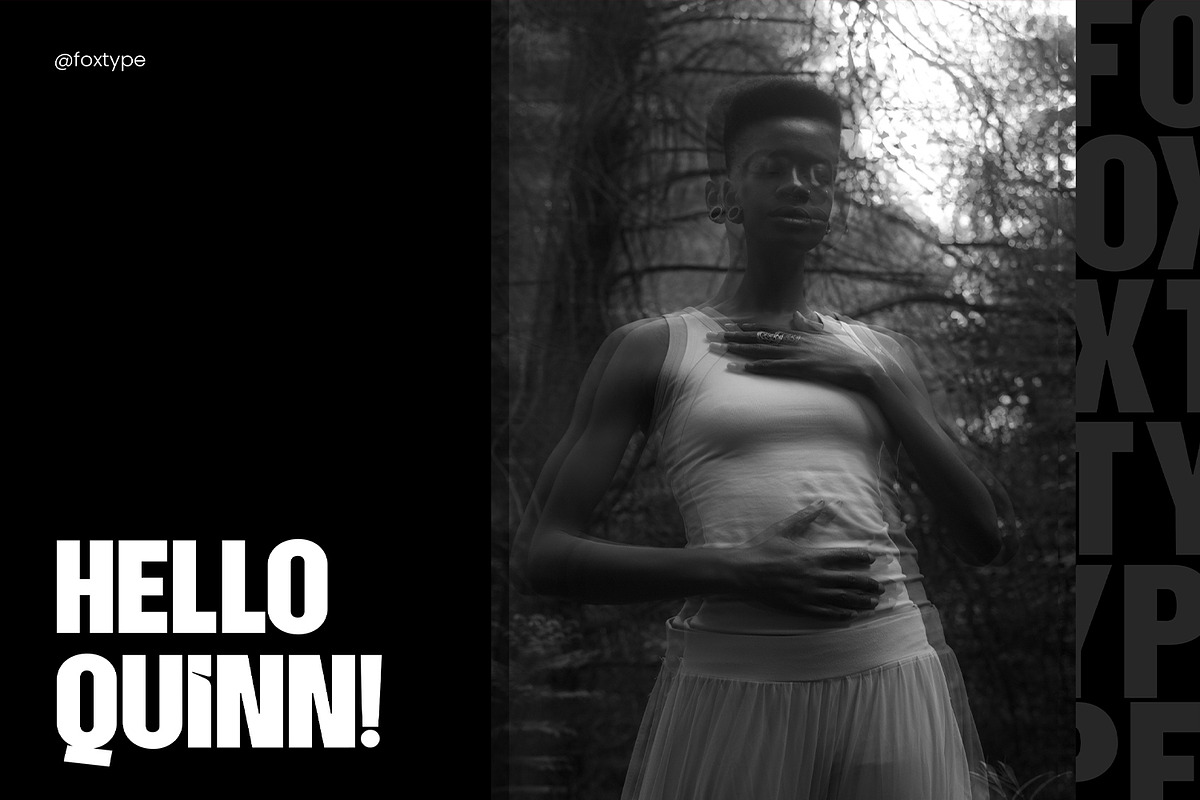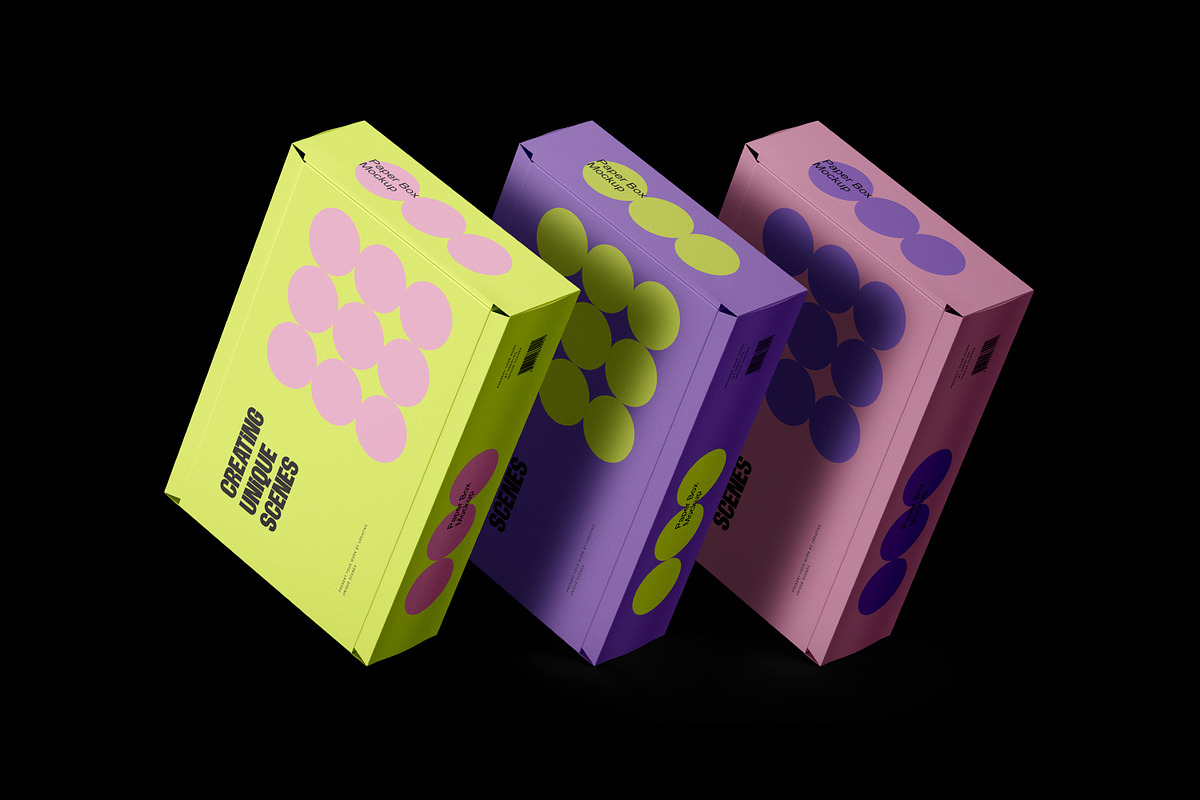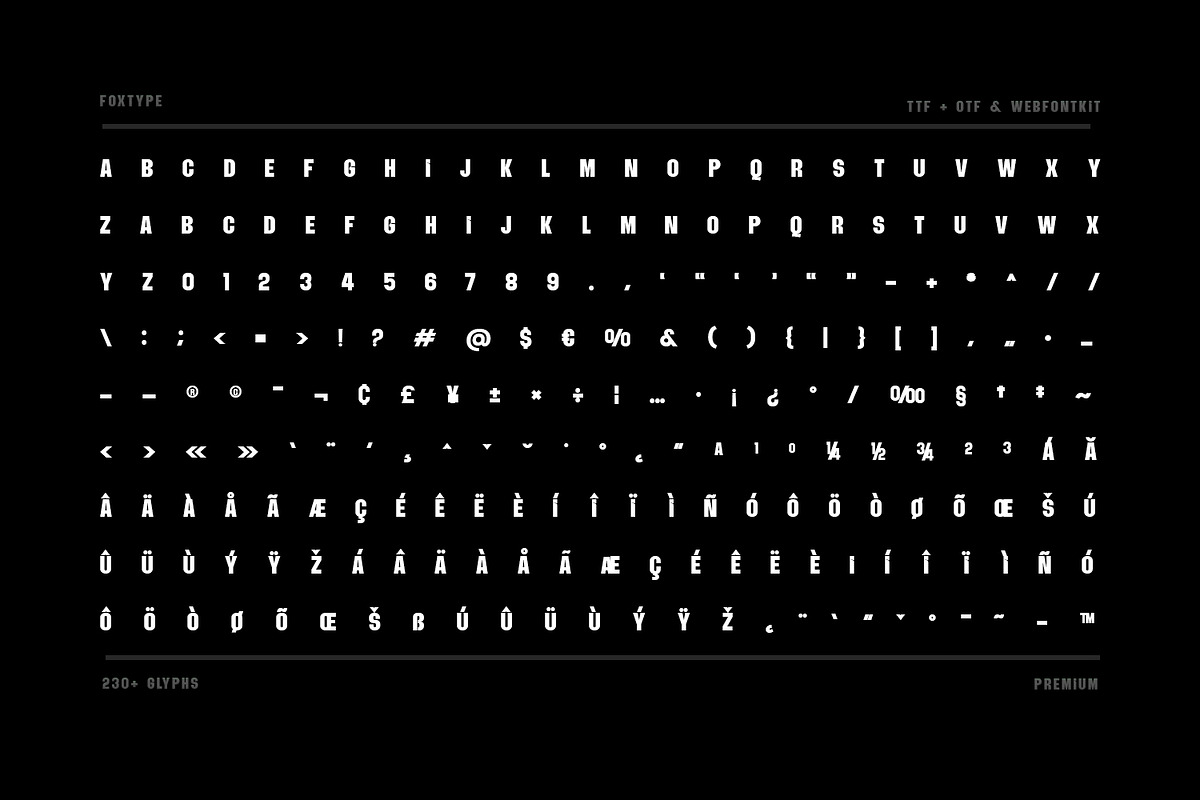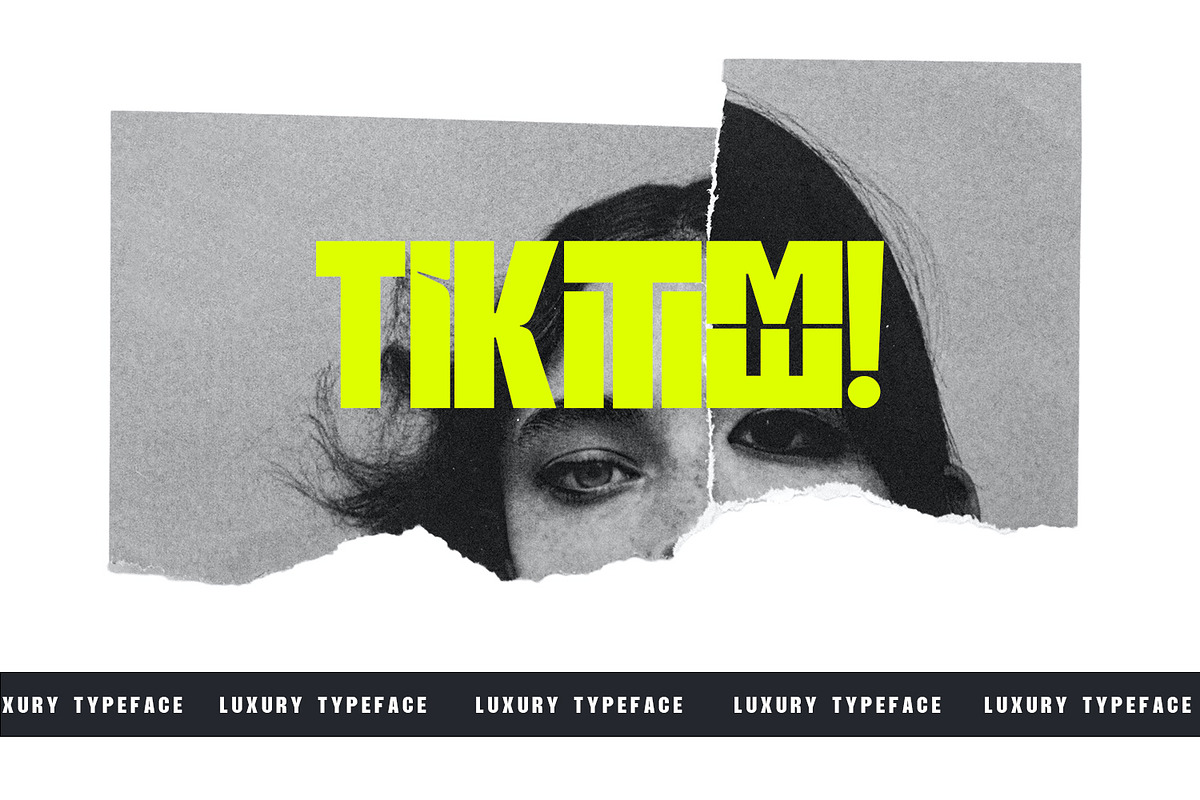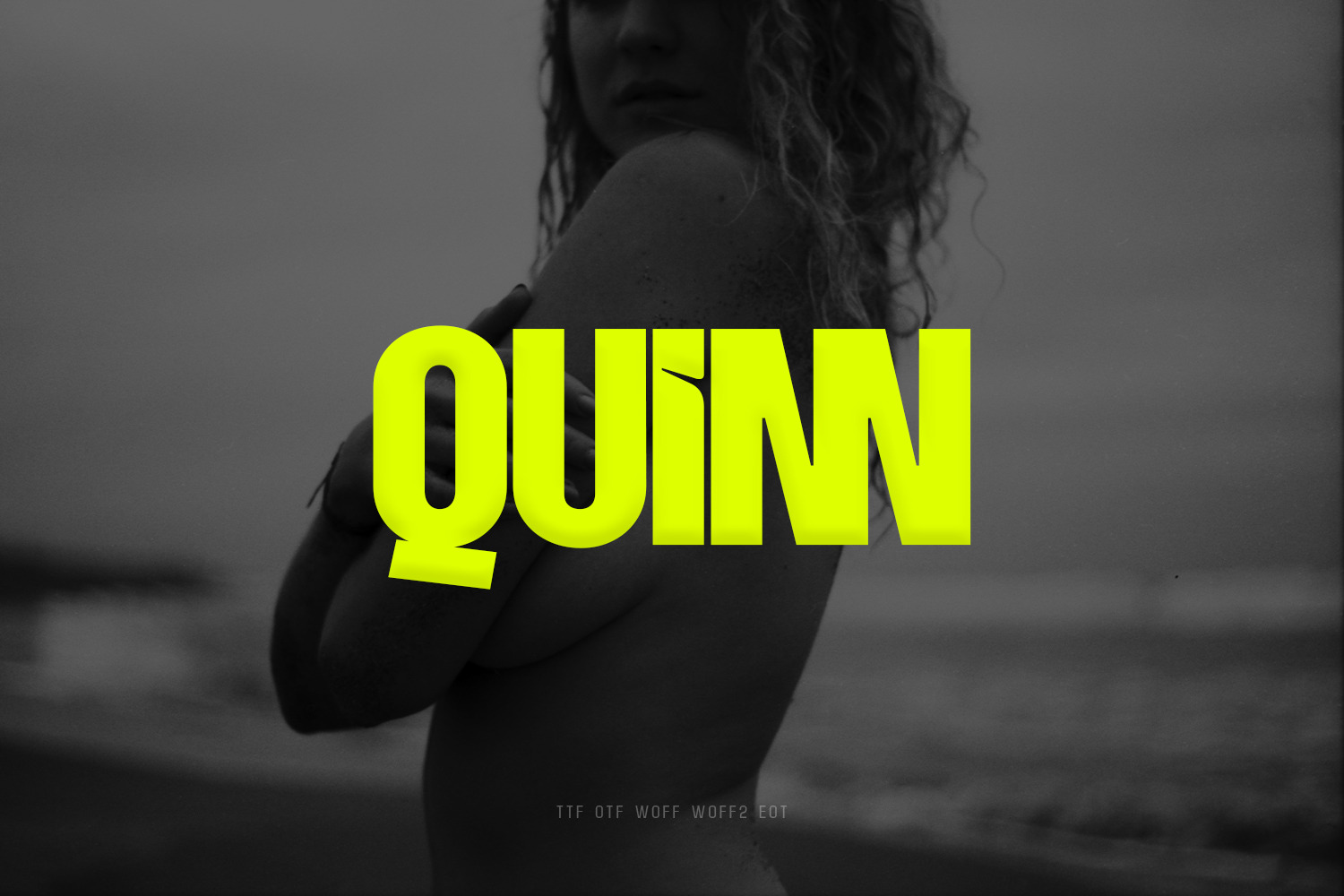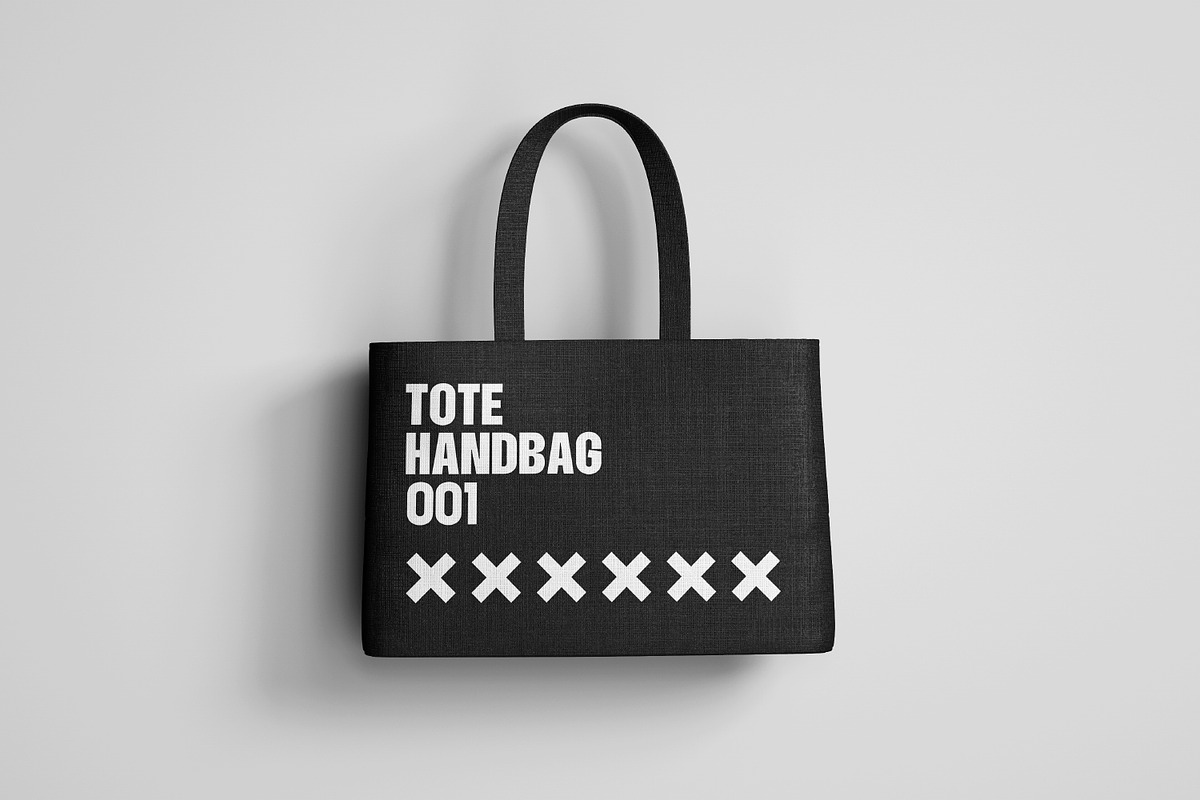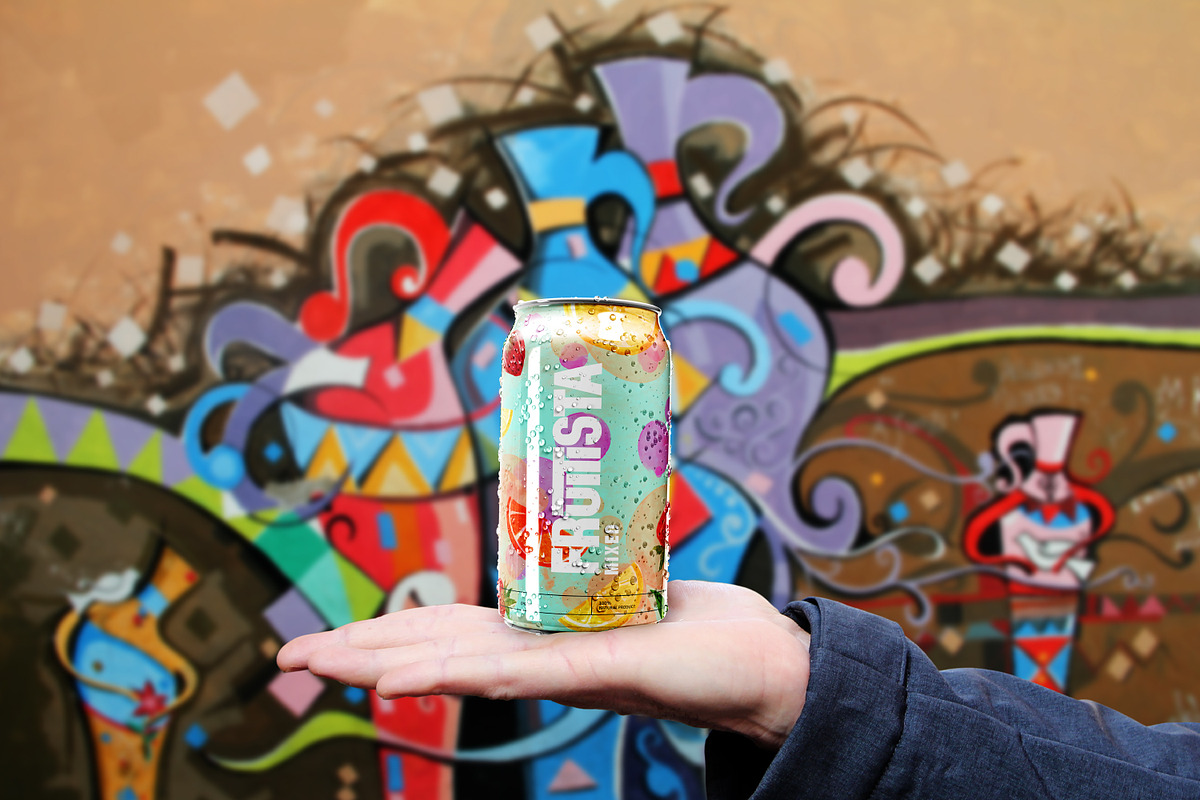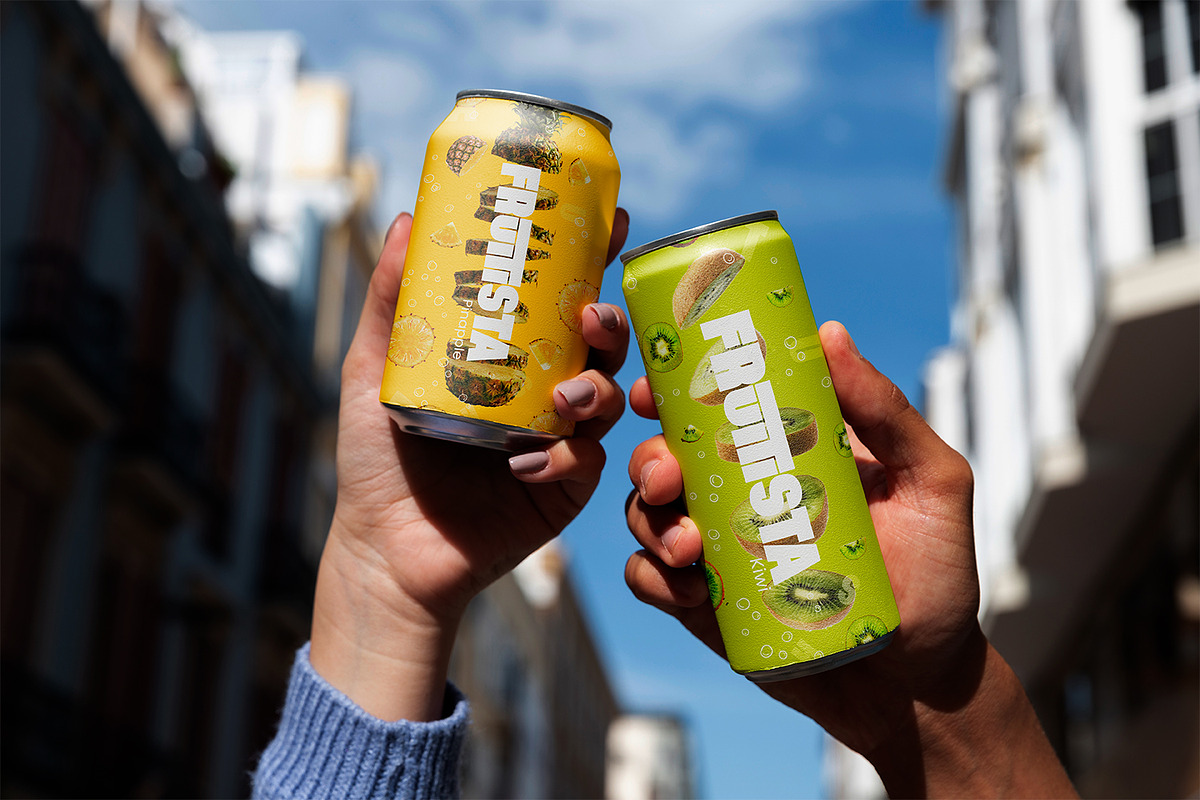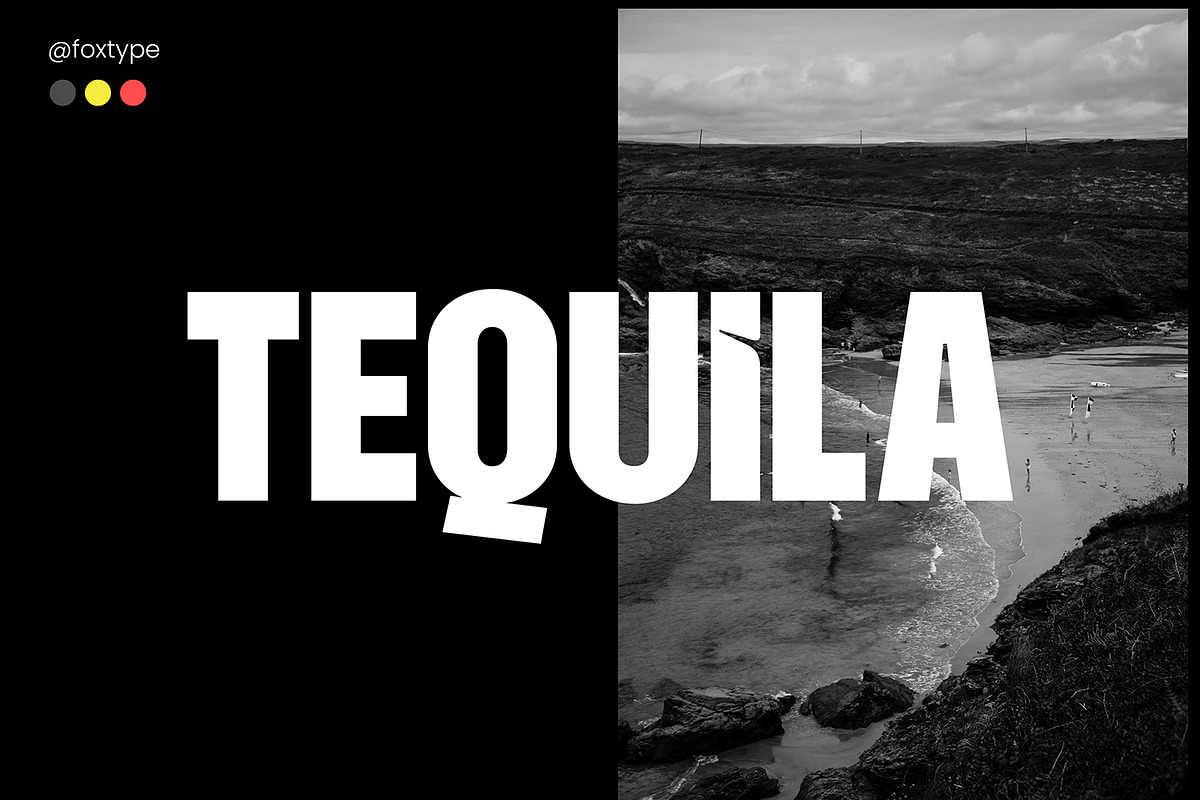
Quinn Display Typeface
Introducing Quinn Display new generation Typeface created for building brand identity. Quinn Typeface created with the vision of to attract the audience to your brand . The finest details of this typeface are methodically and mathematically created.
Quinn is created with all the tasks of a corporate font and also for the usage in a variety of projects, including branding, logos, titles, headlines, servers, posters, screens, display, digital ads, and everything else.